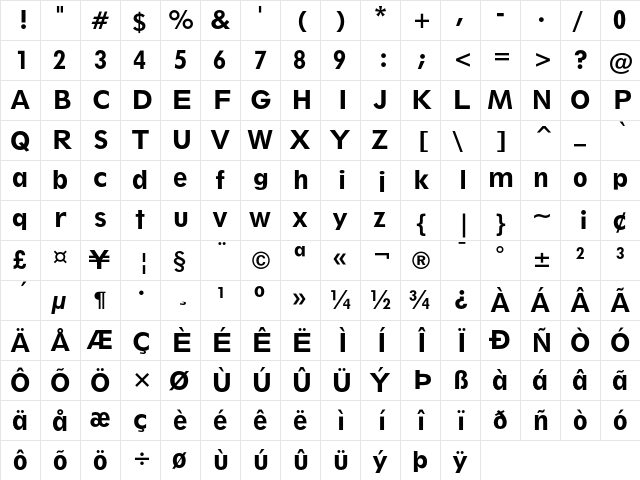
Geometric 212 Heavy
Design Context for Geometric 212 Typeface
Geometric 212 takes a measured approach to typography — its balanced proportions and neutral character make it a reliable workhorse for both digital and print work.
Pro Tip: Use Geometric 212 in both headline and body roles to test its range before committing to a single application.